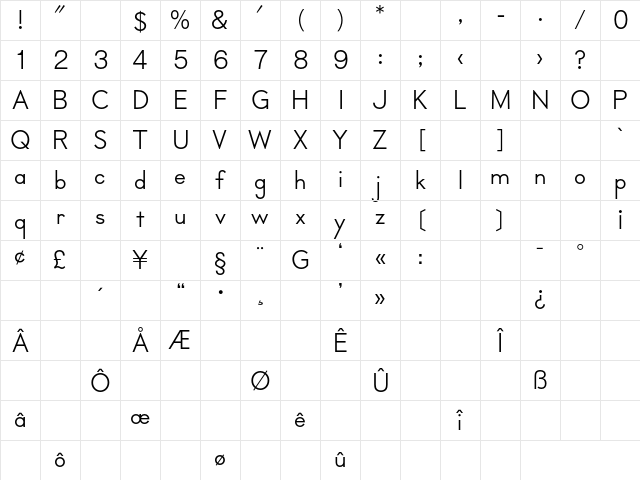
MO GRomaji2 Regular
MO GRomaji2 Family
Design Context for MO GRomaji2
MO GRomaji2 is a composed and adaptable typeface that performs quietly and consistently across a wide range of design contexts.
Pro Tip: Use MO GRomaji2 in both headline and body roles to test its range before committing to a single application.